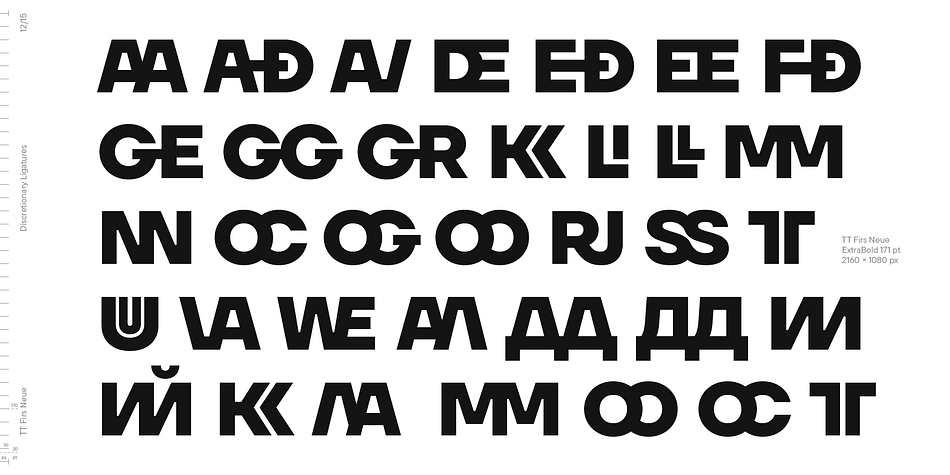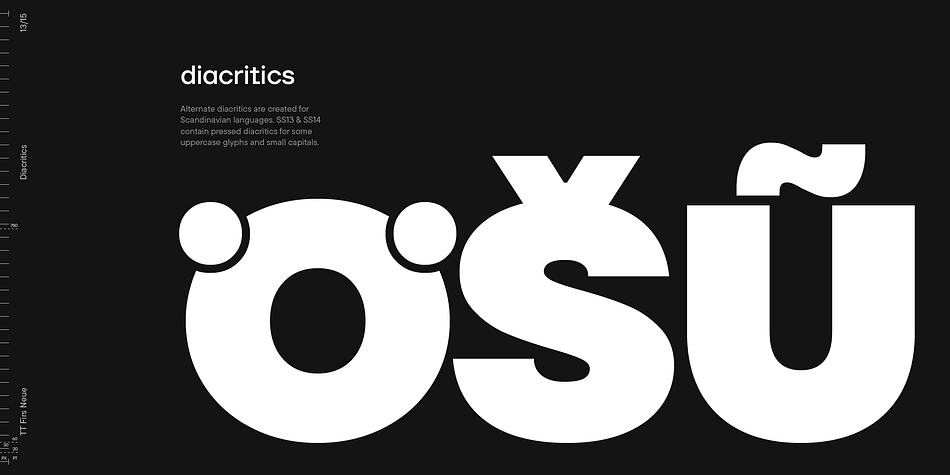
TT Firs Neue
Designed by Ivan Gladkikh, TypeType Team and Phillip Nurullin, TT Firs Neue is a sans serif font family. This typeface has twenty-three styles and was published by Typetype.
TT Firs Neue is reborn!
We have rethought the font to introduce the next-generation typeface.
After analyzing each contour and graphic element, we rebuilt the font, preserving its best features while making any necessary adjustments. We have created a flawless and modern sans serif using the new technical capabilities of the studio.
TT Firs Neue is a Scandinavian sans serif that combines expressive graphic elements with the versatility of use. In the latest 2023 edition, the font’s display elements have become even more attractive, while the overall font balance has also been improved. This is the result of the visual research we did before working on the update.
Here is what has changed.
● The visual elements of the font are now logically coherent. We got rid of the ones that did not suit the font’s concept and kept the most attractive ones. The changes affected letters with diagonal strokes “M, N, И”, and figures “2, 3, 6, 9”.
● All round characters’ shapes have been standardized for all font styles. In the previous version, all glyphs looked different: more square or oval, depending on the font’s weight. We made the shapes consistent for the font to feel more integral.
● Glyphs containing bowls have also changed. We have worked on the balance, altering the height and shape of the bowls. Like rounded ones, we aspired to make the glyphs more balanced for all font styles.
● The shapes of the letters “J, M, N, S, W, З, И” and Black font style characters have changed. The individuality of these glyphs was slightly different from the whole set, which became apparent in larger sizes. We have improved the shapes and made them more suitable for the font’s style.
● Letters with diagonal strokes and triangular glyphs, such as “A, V, Y, D”. We have brought the characters to a consistent logic in their shapes by refining the angles and weight of diagonals in different font styles.
● The glyphs’ terminals follow the same logic in the new version. We have preserved and perfected the old shapes.
● Ligatures and stylistic sets have been updated entirely and expanded. We have researched Scandinavian languages and designed ligatures and diacritical sets that would definitely be useful for designers.
● We have redesigned diacritical marks, figures, and punctuation marks. Now all characters follow the same logic and contribute to a well-balanced impression of the font.
● The character set in each font style has been increased from 934 to 1719, and the number of OpenType features—from 24 to 40. The new font includes 23 font styles: 11 roman, 11 italic, and 1 variable font. The variable font has also become a significant technological advancement for TT Firs Neue.
We retained a warm sentiment towards TT Firs Neue’s previous success while redesigning the font and implementing substantial alterations. The 2023 font has been developed according to new technical standards that have become significantly higher in the past 5 years.
TT Firs Neue is a font well-suited for a wide range of contexts. It can be used for headings, text fragments, visual merchandising and building decoration, and the web. The font is visually aesthetic on podcast and video covers and is an ideal choice for packaging design and brand identity.